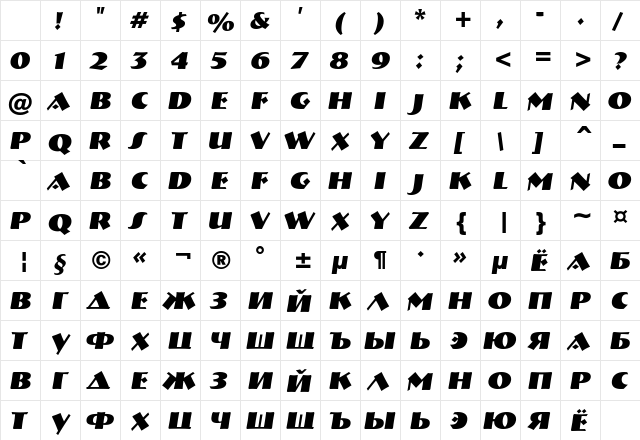
a_Bremen BoldItalic Free Font
a_Bremen BoldItalic
a_Bremen Family
Complete a_Bremen BoldItalic glyph index. Displaying only characters natively supported by a_Bremen BoldItalic font.
Design Context for a_Bremen
a_Bremen is a composed and adaptable typeface that performs quietly and consistently across a wide range of design contexts. The slanted form adds forward momentum and visual energy. Its bold stroke weight gives it real presence on the page.
Pro Tip: Use a_Bremen for emphasis, pull quotes, and subheadings where its slanted energy can add rhythm to the layout.